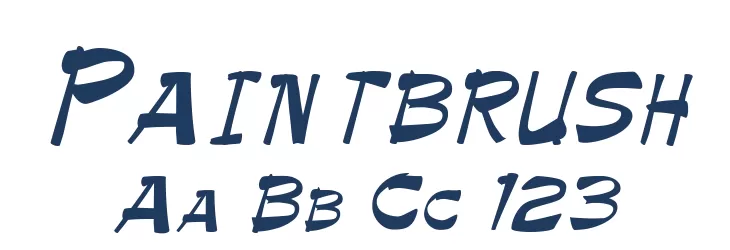
Paintbrush Web Font
Paintbrush Description
This font exudes a dynamic and artistic flair, reminiscent of brush strokes with its fluid and slightly irregular forms. The characters are bold and expressive, capturing the essence of hand-painted lettering. The uppercase and lowercase letters maintain a consistent style, with a playful yet sophisticated appearance. The numbers and special characters follow suit, ensuring a cohesive look across all elements. This font's unique style makes it stand out, offering a sense of movement and creativity.
| Overall Style | Artistic, Expressive |
| Use Case | Headlines, Logos, Posters |
| Proposed Projects | Ideal for creative projects such as posters, art exhibitions, branding for artistic ventures, and any design requiring a bold, expressive touch. |